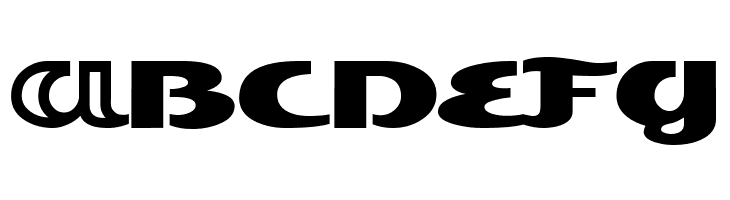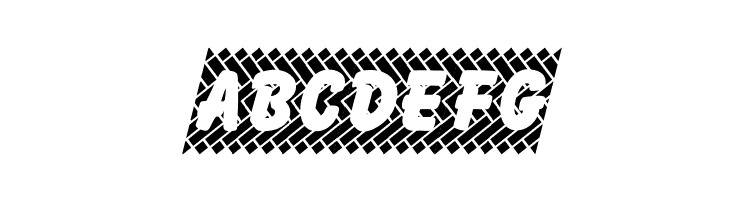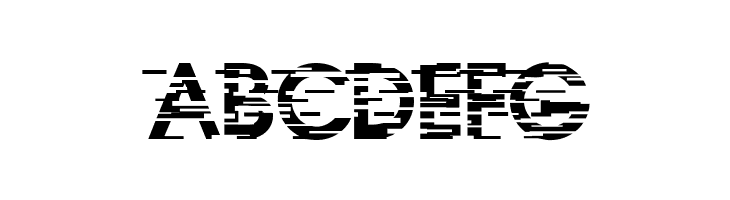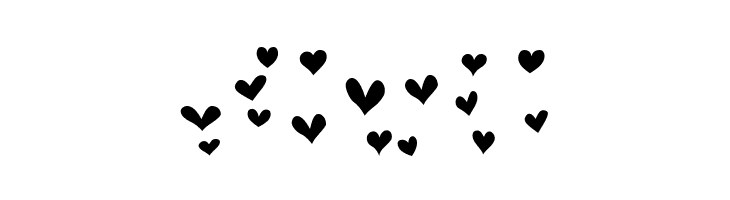
A bold slab serif font with strong, uniform strokes and a modern classic appeal.
A bold, silhouette-style font with a modern and artistic flair.
A bold, rounded font with a playful and approachable style.
A decorative font with intricate symbols and ornaments for artistic use.
A bold, slanted font with a textured, dynamic style.
A bold, glitch-effect font with a modern, digital aesthetic.
A bold, high-contrast serif font with dramatic and elegant features.
A heart-themed decorative font with glyphs made from clustered heart shapes.
A bold, decorative font with heart motifs integrated into each character.
A bold, decorative font with heart motifs, perfect for romantic and playful designs.
A decorative font inspired by maritime flags with bold geometric shapes.
A geometric, maritime-inspired design with bold, clear shapes.
A nautical-themed symbol set inspired by maritime flags, featuring bold geometric designs.
A bold, geometric set of symbols inspired by maritime signal flags.
A bold, playful font with a soccer ball pattern, ideal for sports themes.
A collection of intricate, mystical symbols with esoteric and celestial motifs.
A playful, hand-drawn font with bold, rounded characters resembling pretzels.
A playful, pretzel-themed font with a bold, textured appearance.
A bold, decorative font with floral motifs integrated into geometric letterforms.
A bold, italicized font with a double-line shadow effect for a modern, dynamic look.
A decorative font with Victorian-inspired illustrations integrated into each character.
A playful, star-filled font perfect for vibrant and creative projects.
A bold, decorative font with intricate face illustrations within each letter.
A bold, decorative font with sharp angles and a modern flair.
A bold, decorative font with fluid, enclosed characters.